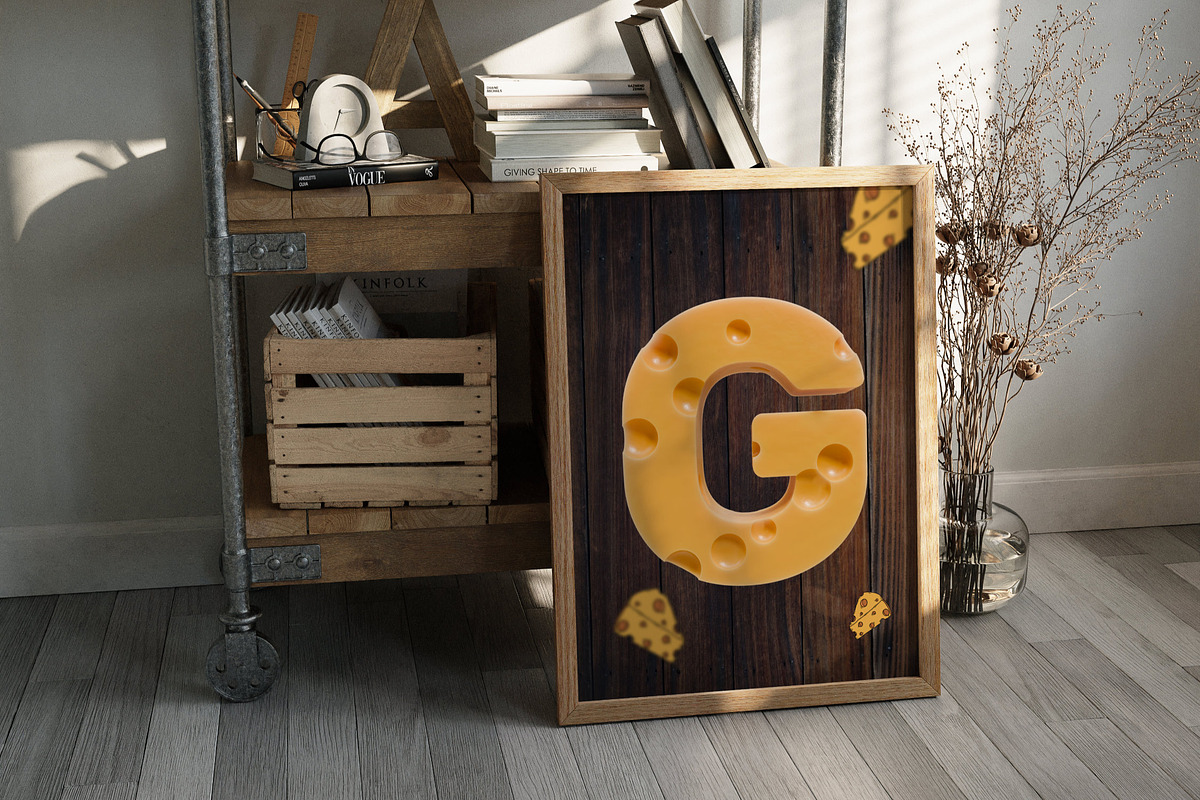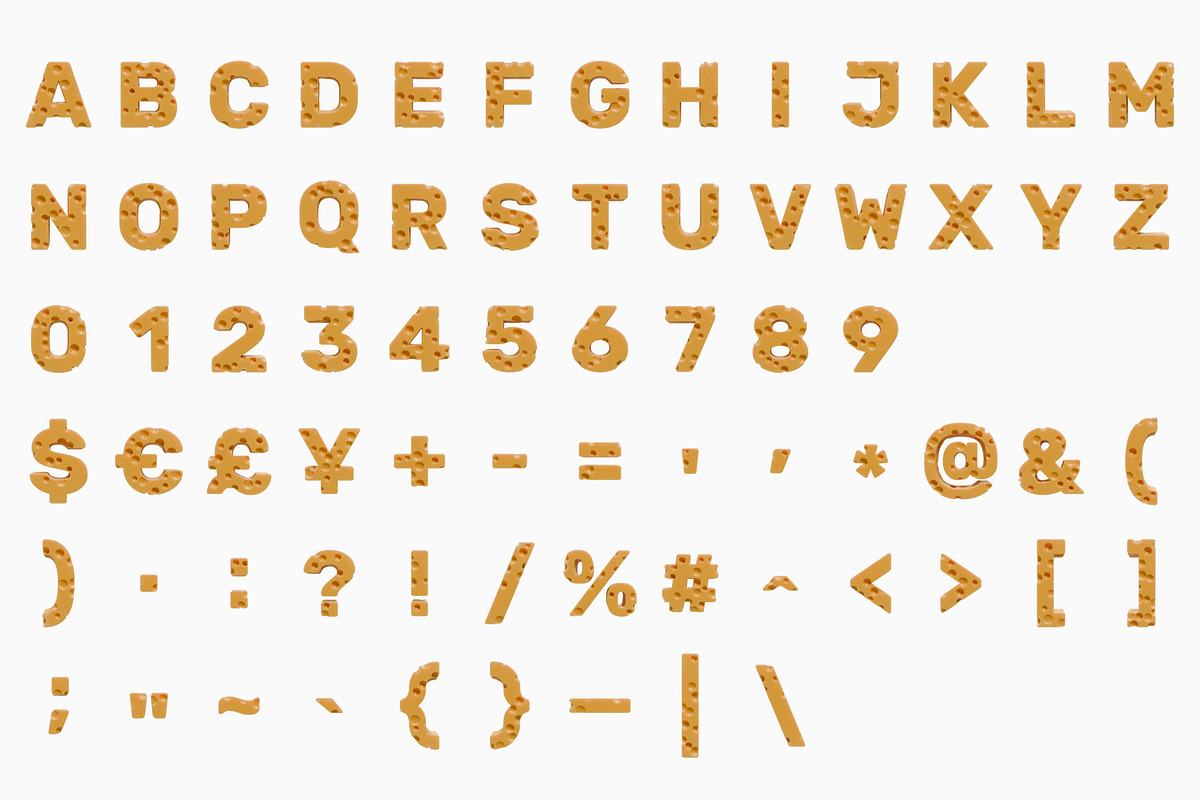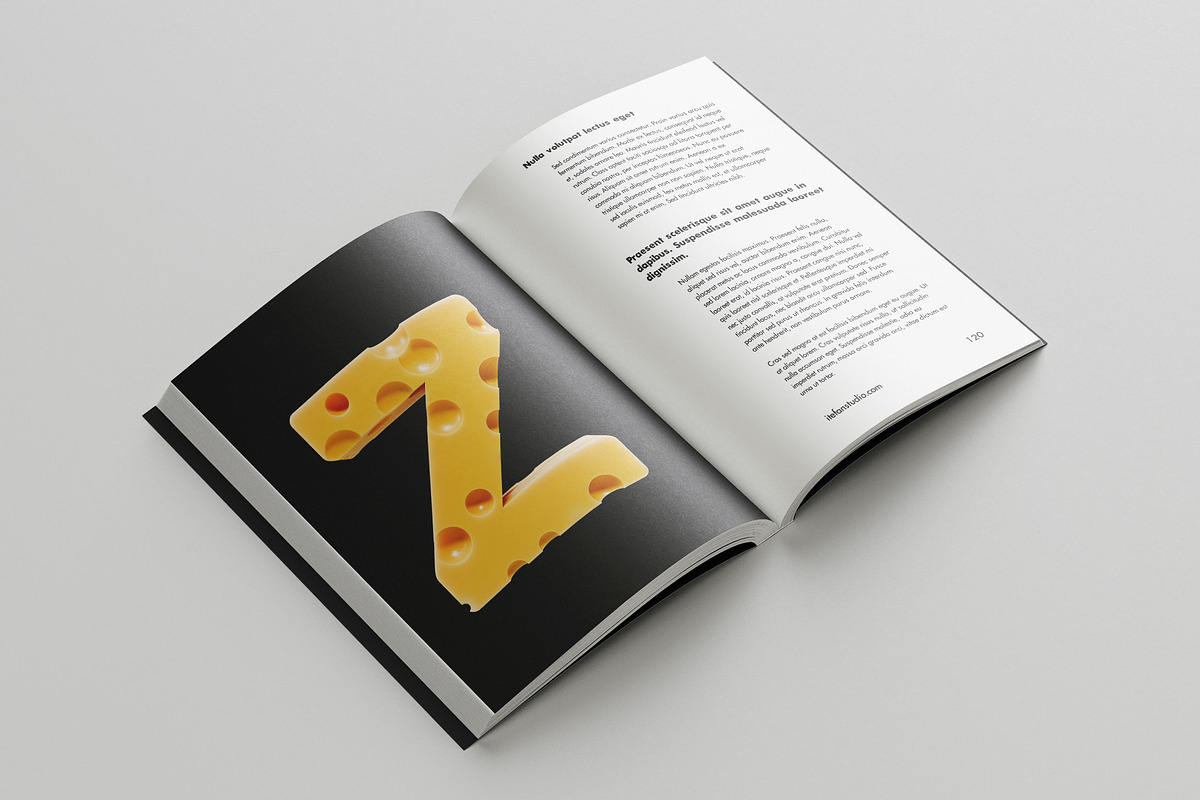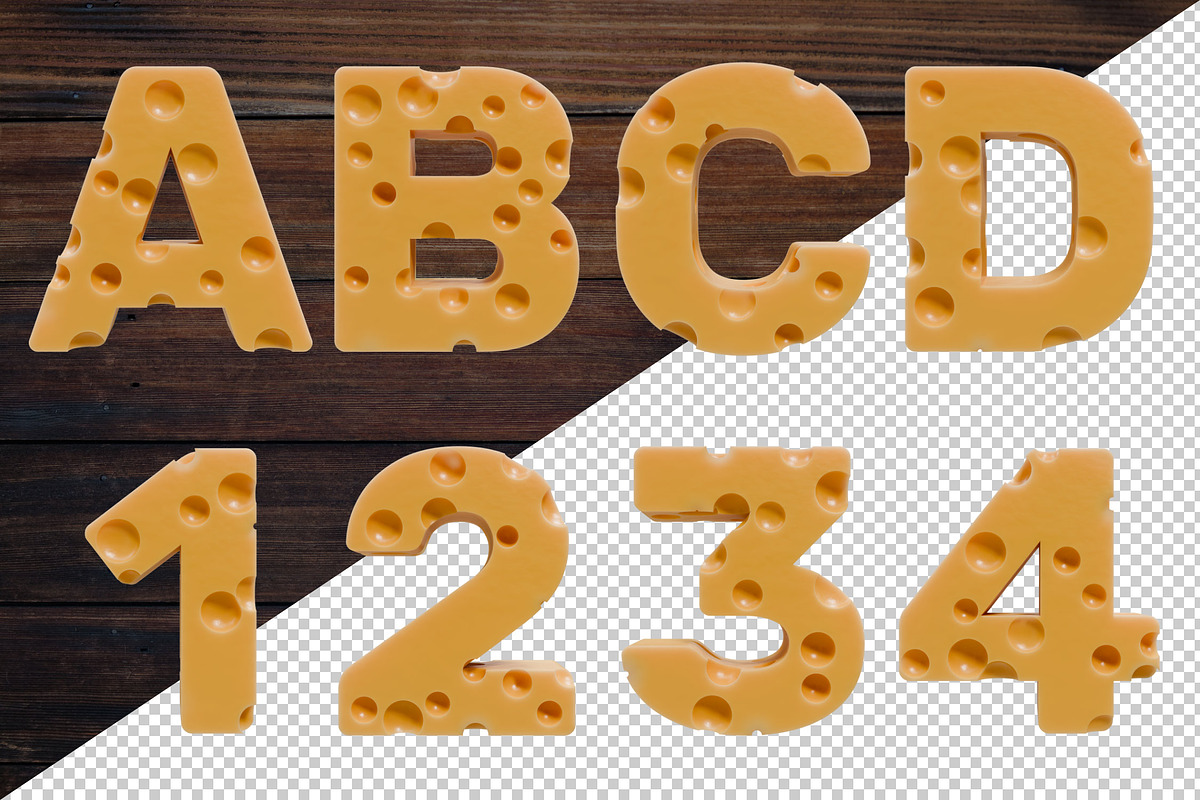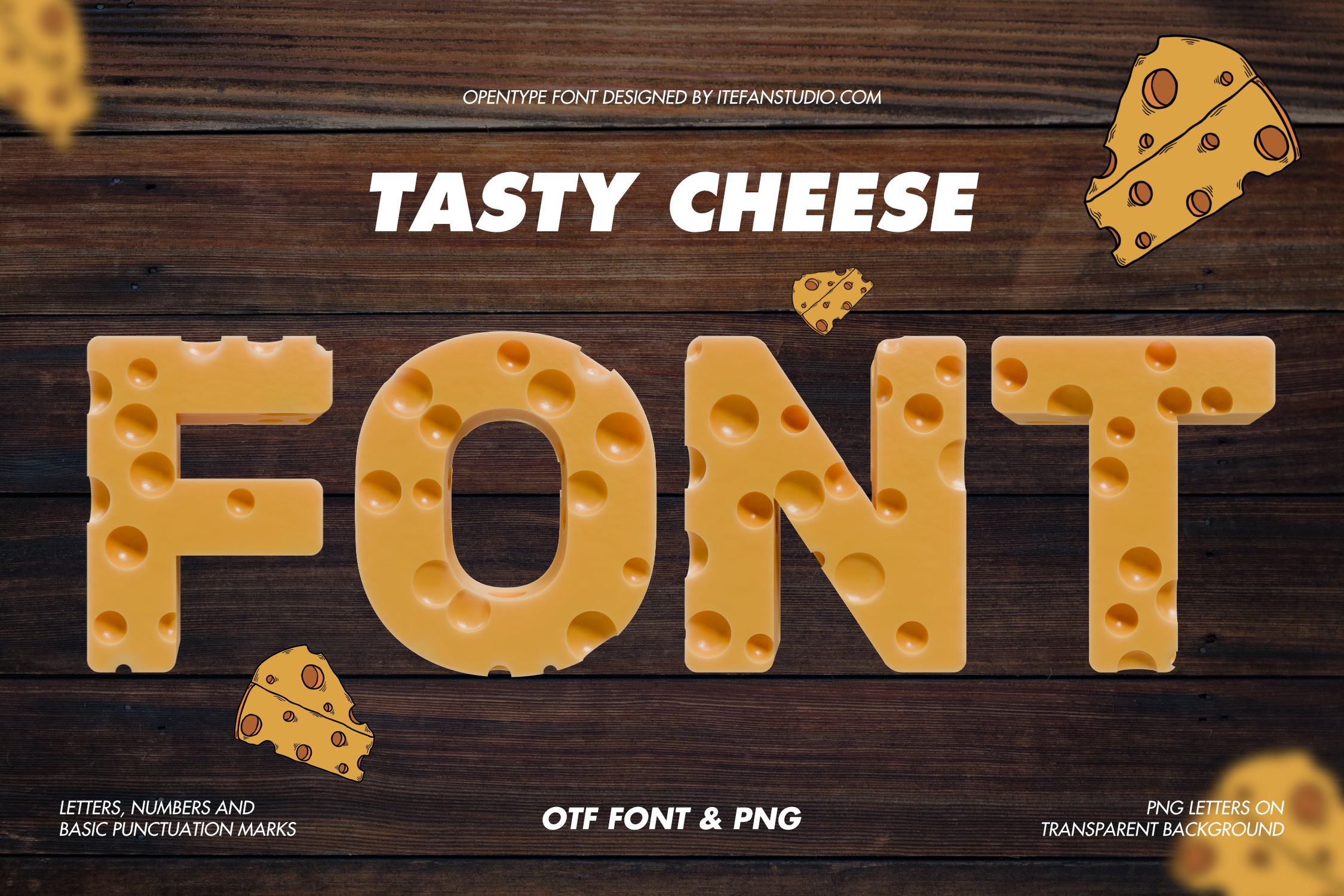
Tasty Cheese Font
Say cheese with this irresistibly cheesy font, where each character is crafted to look like a tempting slice of tasty cheese—full of authentic holes and glistening with a smooth, glossy finish. Perfect for serving up a slice of whimsy in food-themed graphics, tasty branding, mouth-watering packaging, flavorful advertising, and playful typography projects. Available in both OTF and PNG formats with transparent backgrounds.
- Letters : A B C D E F G H I J K L M N O P Q R S T U V W X Y Z
- Numbers : 0 1 2 3 4 5 6 7 8 9
- Others : $ € £ ¥ + - = ' , * @ & ( ) . : ? ! / % # ^ [ ] ; " ~ ` { } _ |
This font is a high-resolution OpenType typeface featuring uppercase letters, numbers, and basic punctuation, with each character approximately 800 pixels tall. A complete preview of all letters and glyphs is provided for reference.